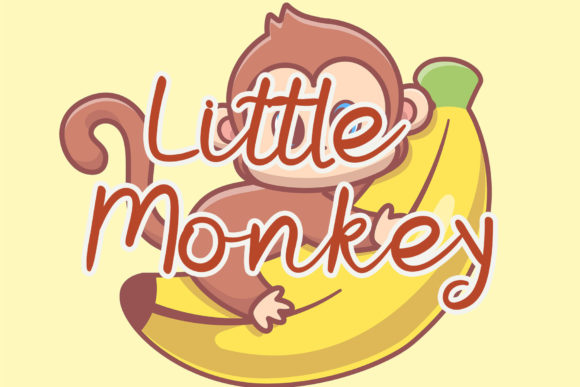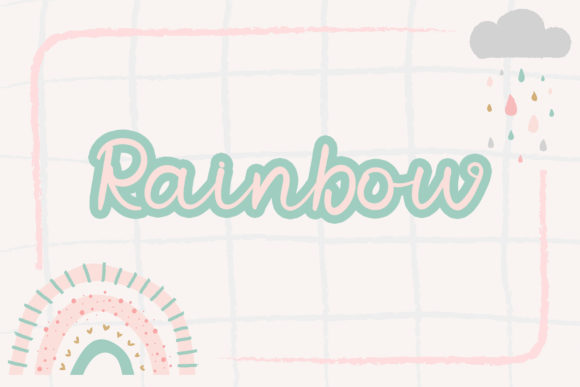
Baby Bunny Font
db-ku.com - Script & Handwritten -- Baby Bunny is a lovely and timeless handwritten font. It is the best choice for creating eye catching logos, branding and quotes. Every letter has a unique and beautiful touch, which will make your design come alive!